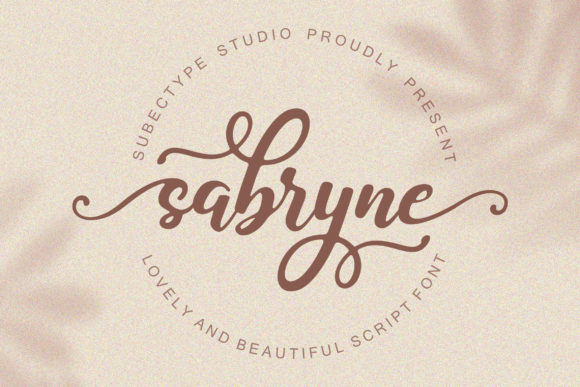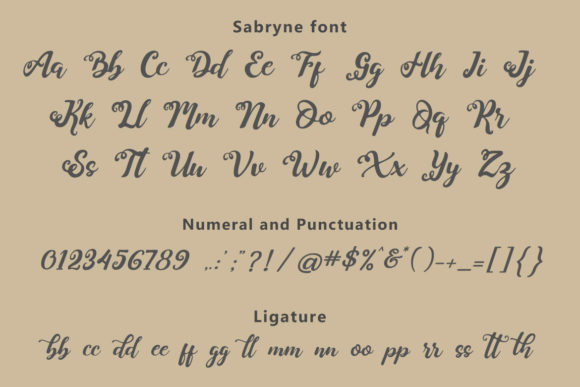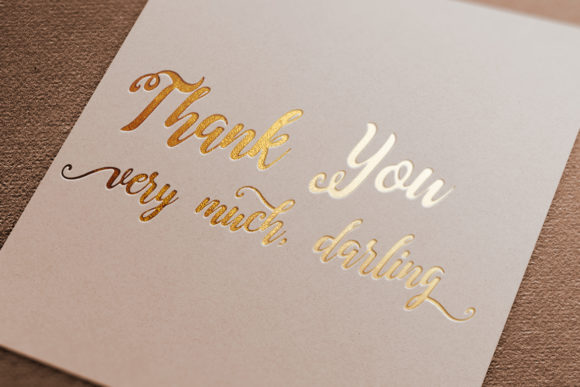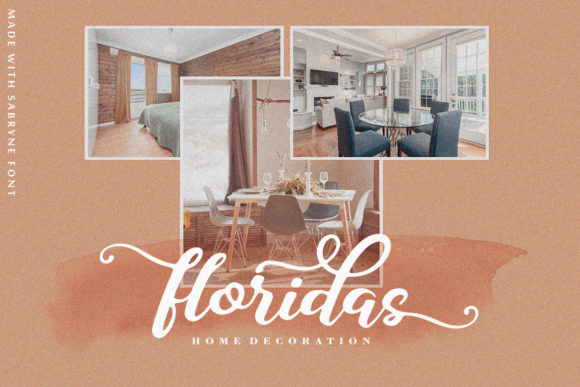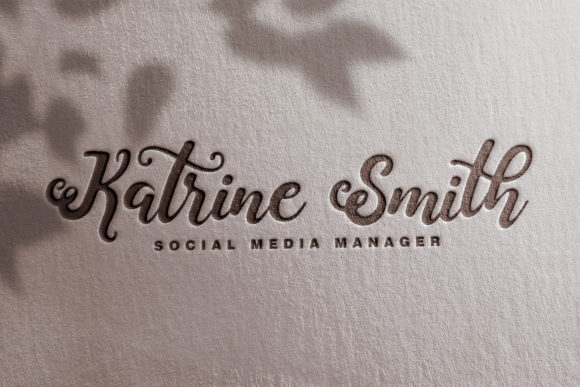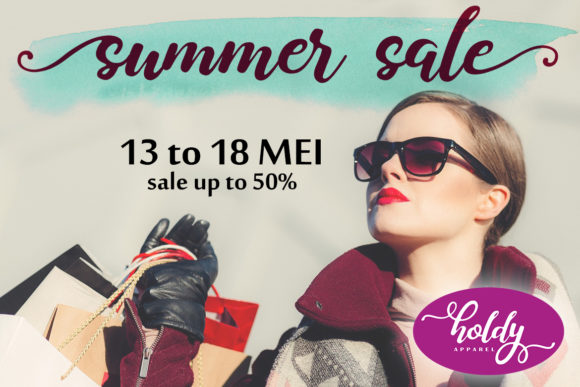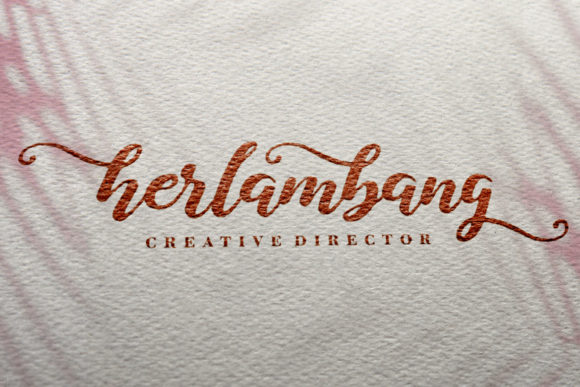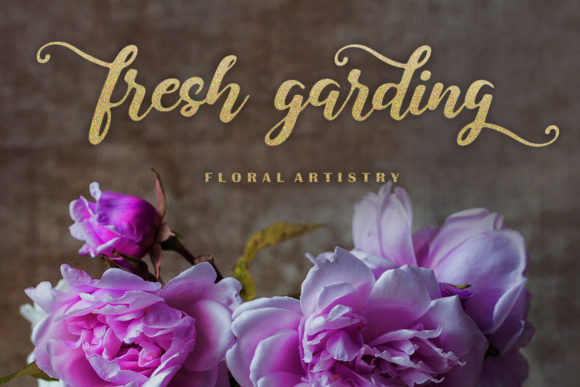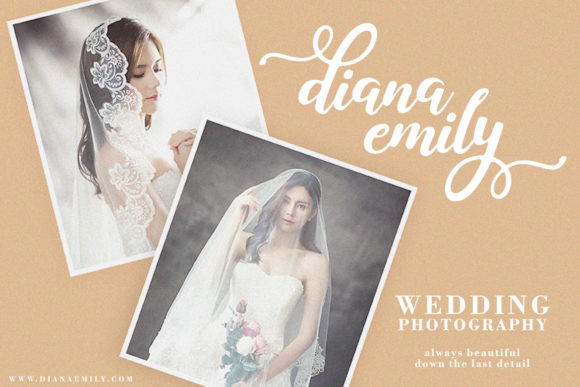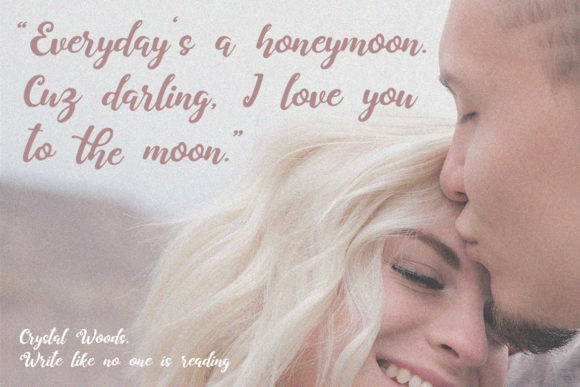
Sabryne Font
About Sabryne Font
Sabryne is a beautiful and lovely script. It has a great readability and will add a fun and lovely touch to any design.